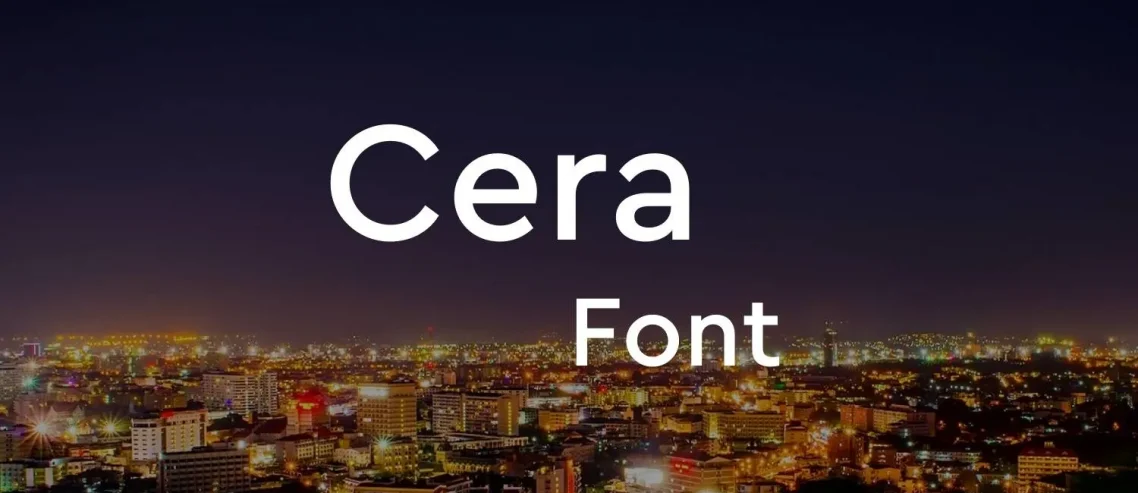
Cera Font is a sans-serif typeface designed by Swiss typeface designer Max Miedinger in 1957. The font takes its name from the Latin word for wax, which references the smooth, clean lines of the letters.
This Font was originally released under the Haas Type foundry, and quickly became popular for its modern, clean appearance. The font was used extensively in advertising and packaging in the 1960s and 1970s. In 2012, Cera Typeface was updated and expanded by Swiss typeface designer Christian Mengelt.
Today, This Font is widely used in both digital and print design. It is a popular choice for web design, as it is easy to read on screens. The font is also popular for branding and logo design, thanks to its clean and modern appearance. This font is very famous all over the world but it is not currently available in google or adobe font store.
Cera Typeface is a versatile typeface that can be used for both digital and print design. It is perfect for web design, as it is easy to read on screens. The font is also popular for branding and logo design, thanks to its clean and modern appearance.
Thanks to its clean lines and simple forms, This Font can be used for a variety of design projects. Whether you’re looking for a sans-serif typeface for your website or branding, Cera Typeface is a great choice.
When it comes to digital design, Cera Font is a versatile typeface that can be used for a variety of projects. The font is perfect for web design, as it is easy to read on screens. This Font is also popular for branding and logo design, thanks to its clean and modern appearance.
Cera Font is a great choice for any project that requires a sans-serif typeface. Thanks to its clean lines and simple forms, the font can be used for a variety of design projects. If you want to see the similarities of this typeface and want to pair them then lhf convecta base font is the best option for you.
This typeface is manufactured by a very notable designer named Max Miedinger. This typeface is preferred by many designers and users also.
What is a Cera font?
Cera Font is a sans-serif typeface designed by Swiss typeface designer Max Miedinger in 1957.
What Google font is similar to Cera?
A popular Google font that is similar to Cera Font is open sans font.
Who designed Cera Font?
This Font was originally designed by Swiss typeface designer Max Miedinger in 1957. The font was updated and expanded by Swiss typeface designer Christian Mengelt in 2012.